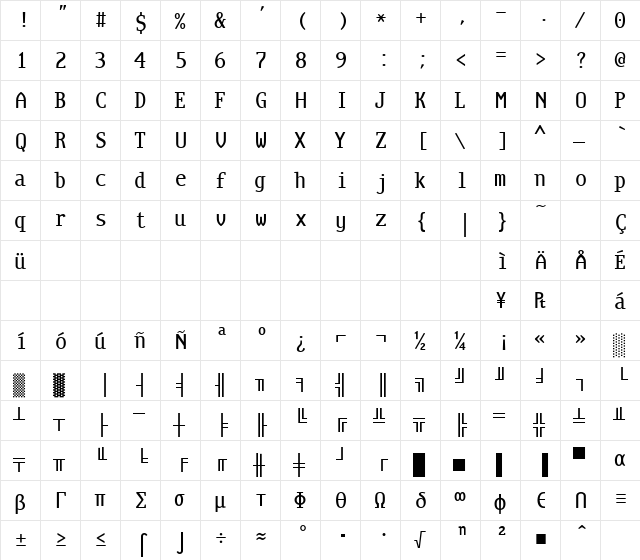
NetTerm OEM Regular
| Designer | Tiro Typeworks |
Design Context for NetTerm OEM Typeface
NetTerm OEM is a composed and adaptable typeface that performs quietly and consistently across a wide range of design contexts.